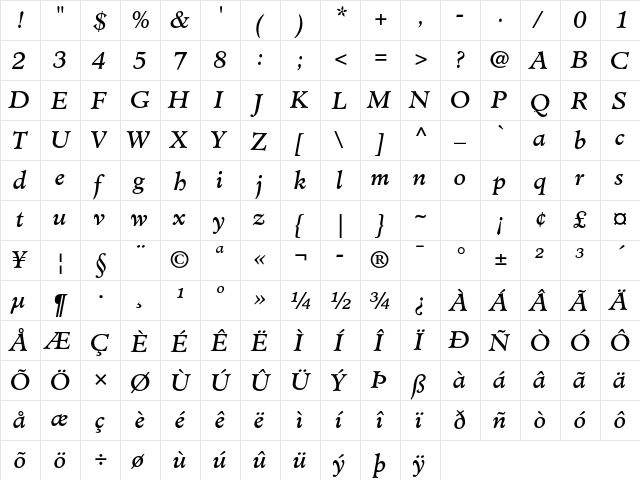
Minister Std Book Italic Font Preview
Minister Std Book Italic
| Designer | M. Fahrenwaldt |
Design Context for Minister Std Typeface
Minister Std is a composed and adaptable typeface that performs quietly and consistently across a wide range of design contexts. Its italic angle brings a sense of urgency and motion to the letterforms.
Pro Tip: Try Minister Std for annotation and caption copy alongside an upright companion — the contrast in angle creates a dynamic but ordered typographic system.